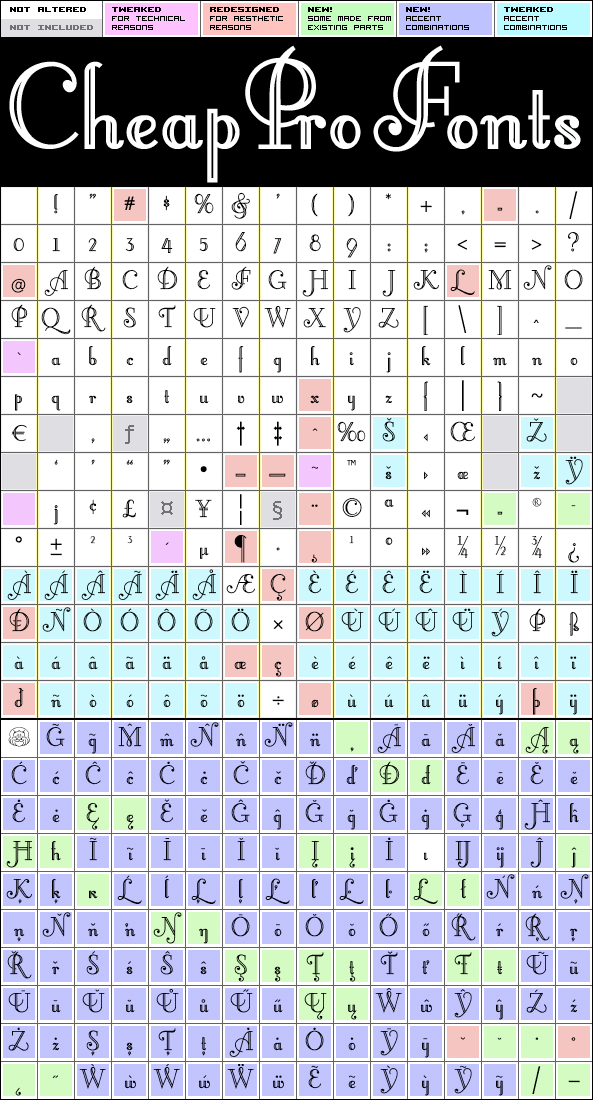
Little Lord Fontleroy NF Pro
Little Lord Fontleroy NF Pro by Nick Curtis
Highlights:
374 glyphs!
(220 in original)
121 class kernpairs
= 5472 kerning pairs
(978 in original)
Description:
An inline version of Fontleroy Brown NF Pro - with a wider spacing after the letters CEK = no connecting words. Otherwise just as lovely and retro!
Nick Curtis says: "Here’s a strange hybrid: I took the lower case from the formal script font Stuyvesant, straightened out its rather extreme 22° slant, and combined them with caps from the font Bellevue, again making them upright, and adding an inline effect. The result is a font that flows very nicely, with a nice balance between clean lowercase characters and swashy caps. Thanks to Deb Dunbar for naming this font."
Little Lord Fontleroy NF Pro is a professionally reworked font that contains an extended character set for setting text in 65 languages requiring more than the basic A-Z!